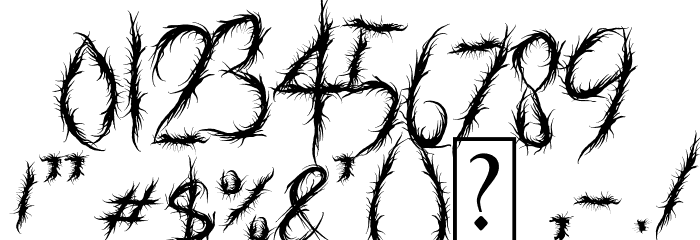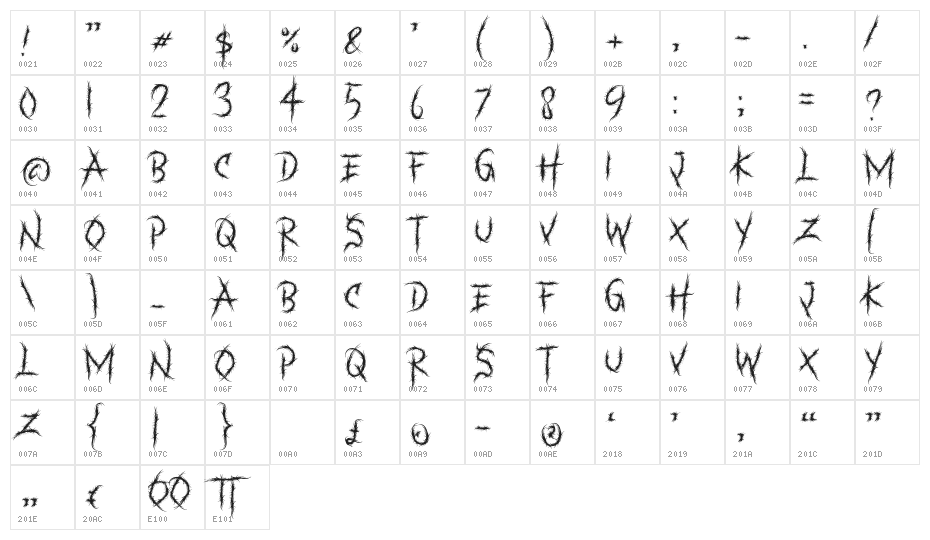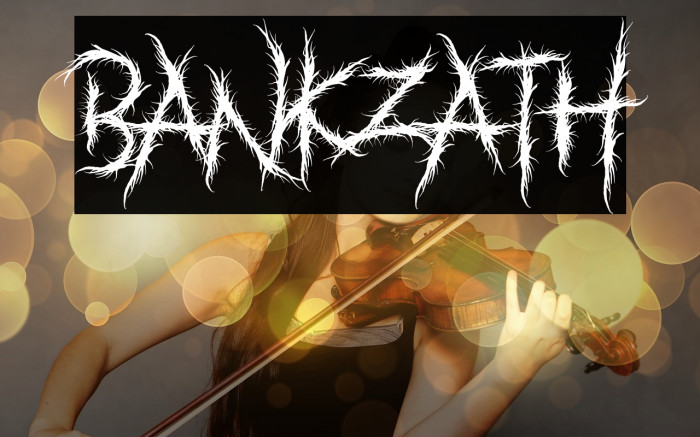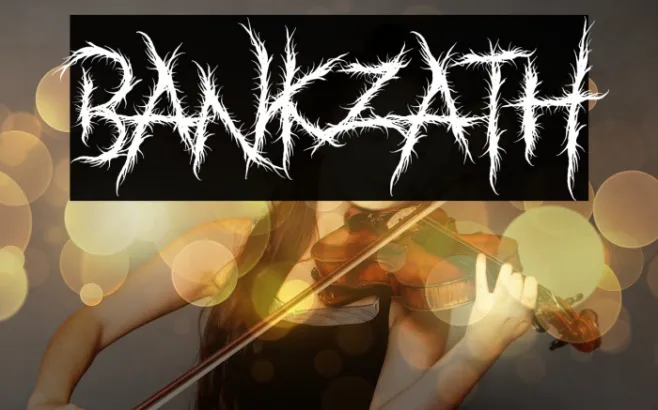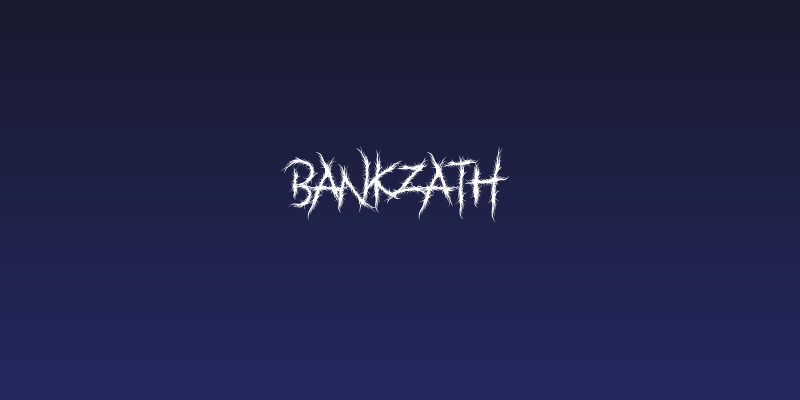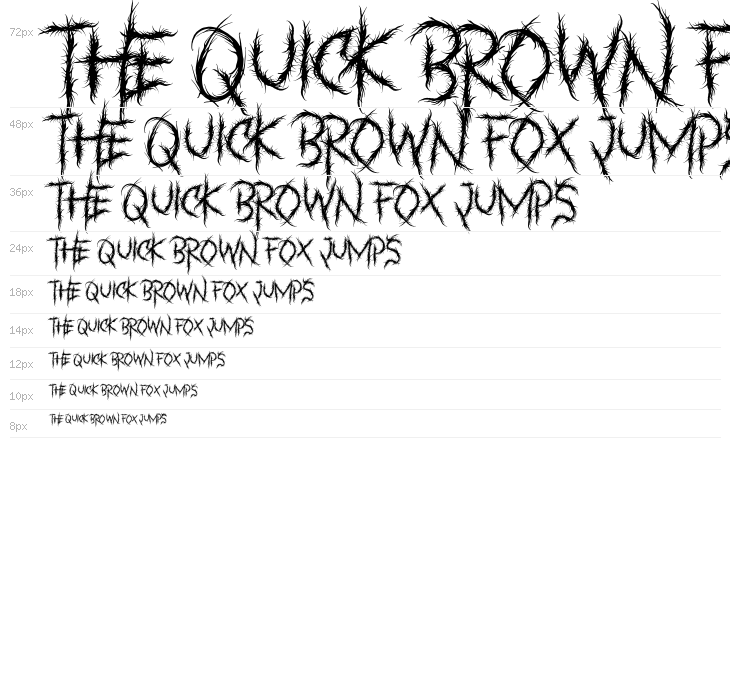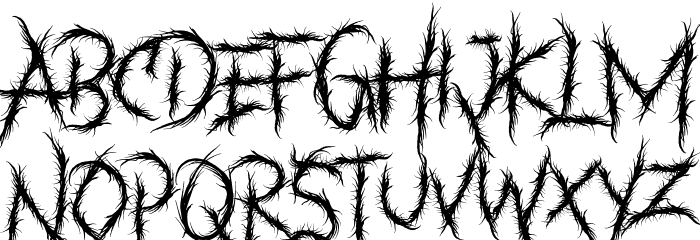
BANKZATH Font
BANKZATH Description
This font exhibits a highly decorative and edgy style, characterized by its thorny, jagged edges that give each character a dynamic and aggressive appearance. The letters are intricately designed with sharp, spiky elements that extend from the main strokes, creating a sense of movement and intensity. This font is visually striking and commands attention, making it ideal for projects that require a bold and unconventional aesthetic. The uppercase and lowercase letters maintain a consistent style, while the numbers and special characters are equally detailed, ensuring a cohesive look across all text elements.
| Proposed Projects | Ideal for horror-themed designs, album covers, posters, and any project seeking a bold, unconventional look. |